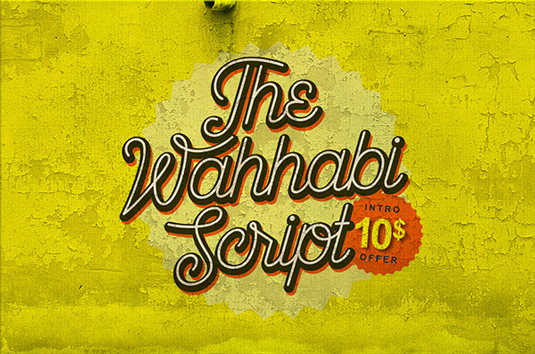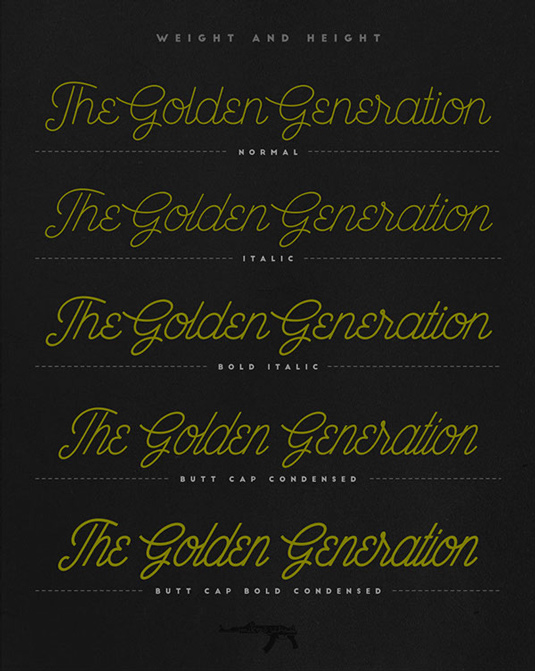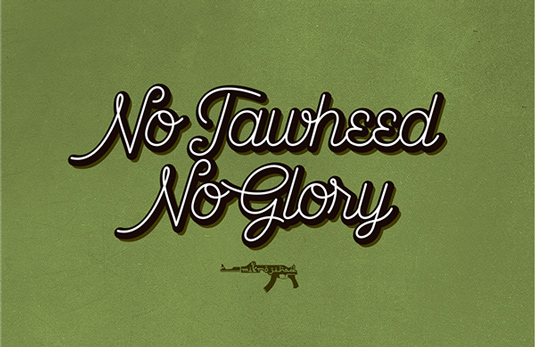
Font of the day: Wahhabi Script
Wahhabi Script from Mikrojihad Inc.
Today's typeface of choice, Wahhabi Script, was created by the team at graphic and type design stuido Mikrojihad Inc. A bold script font, Wahhabi Script is great for creating eye-catching designs with a vintage feel.